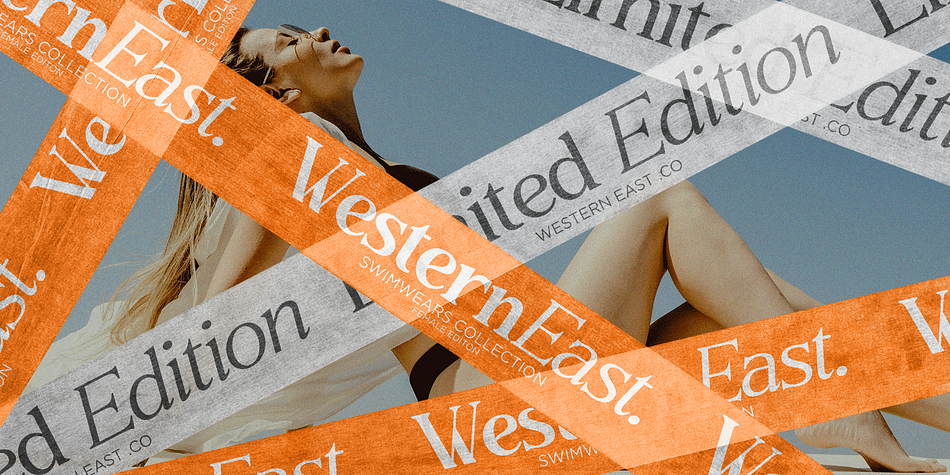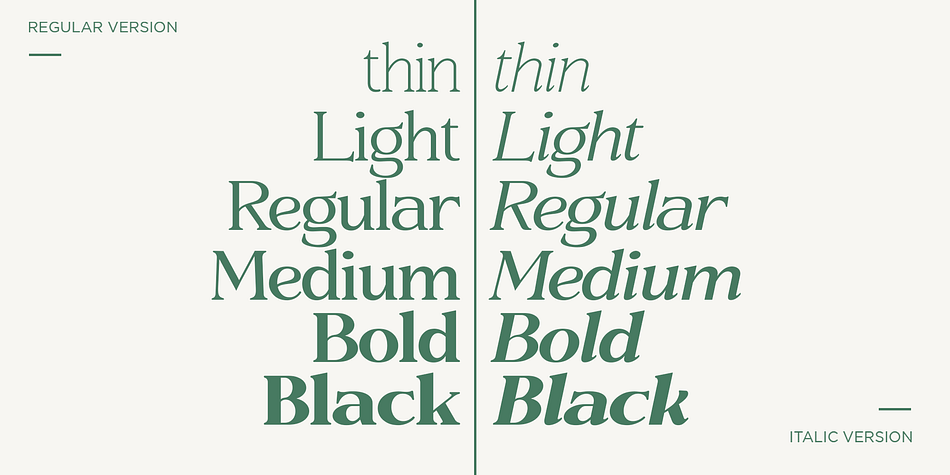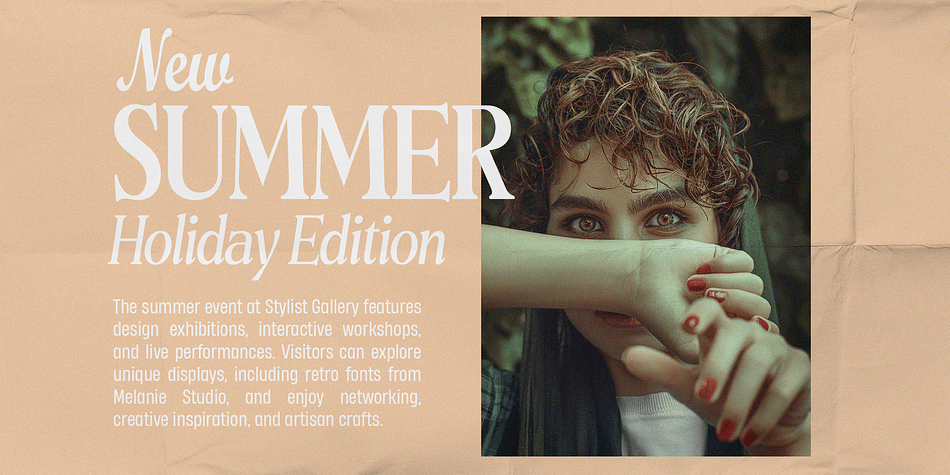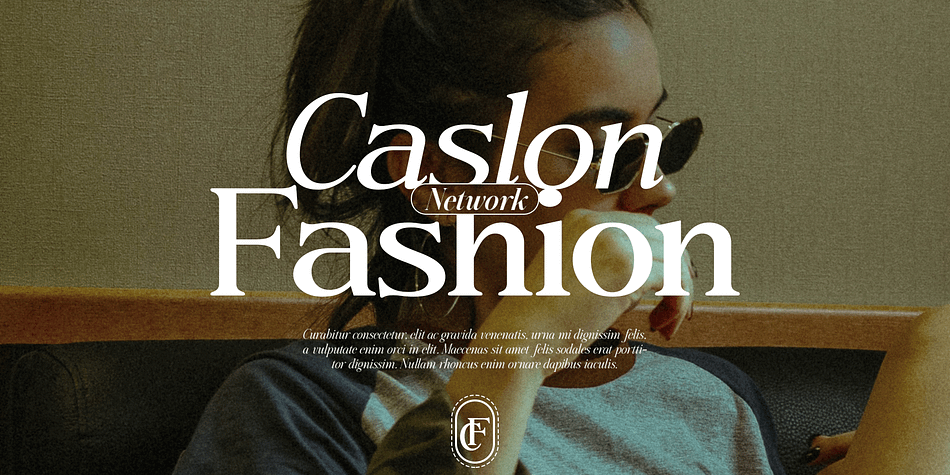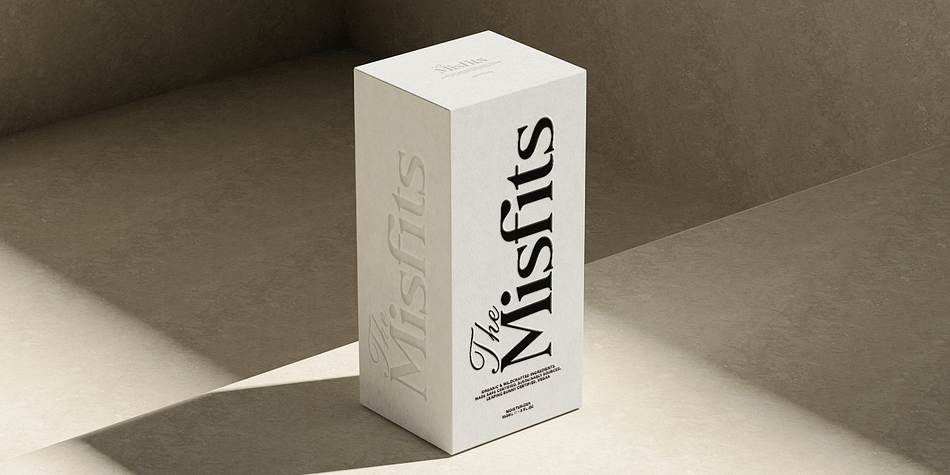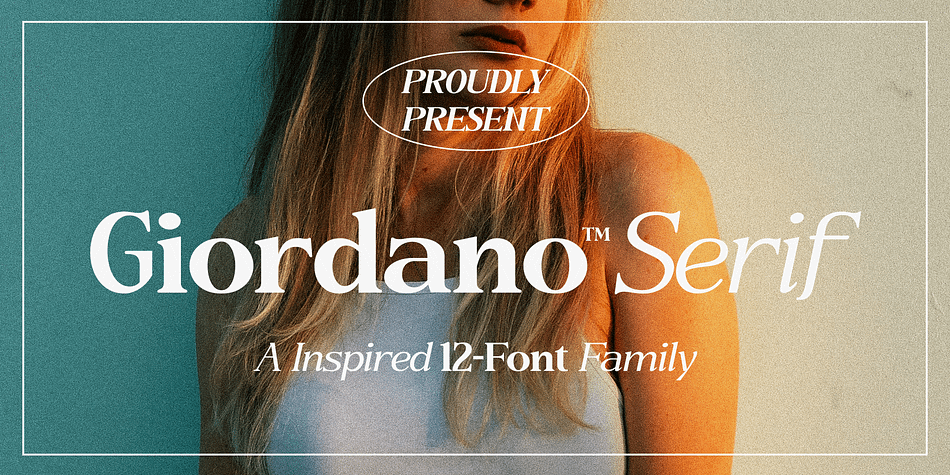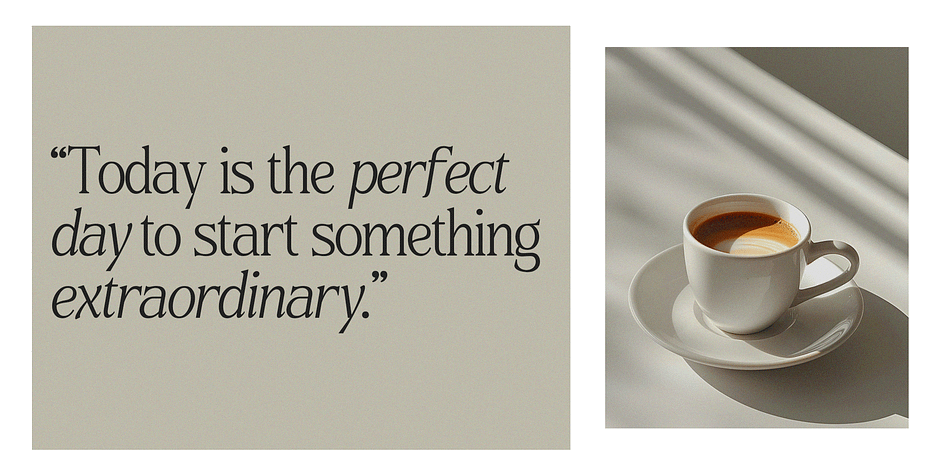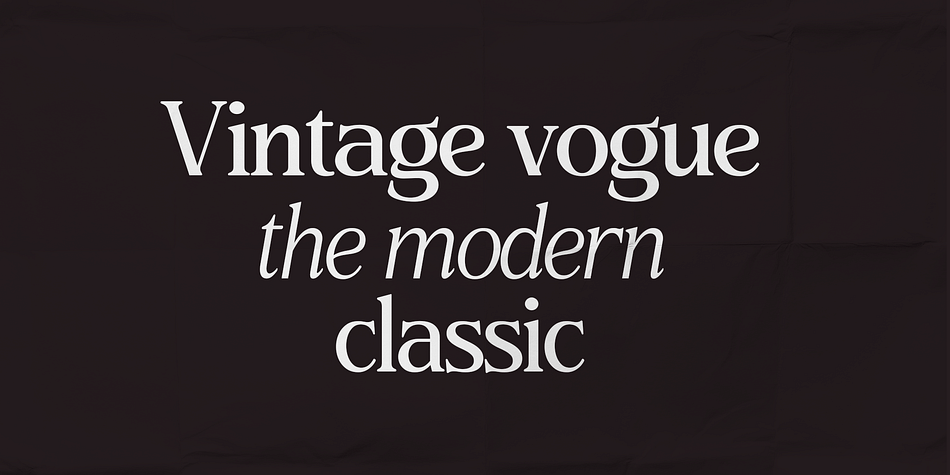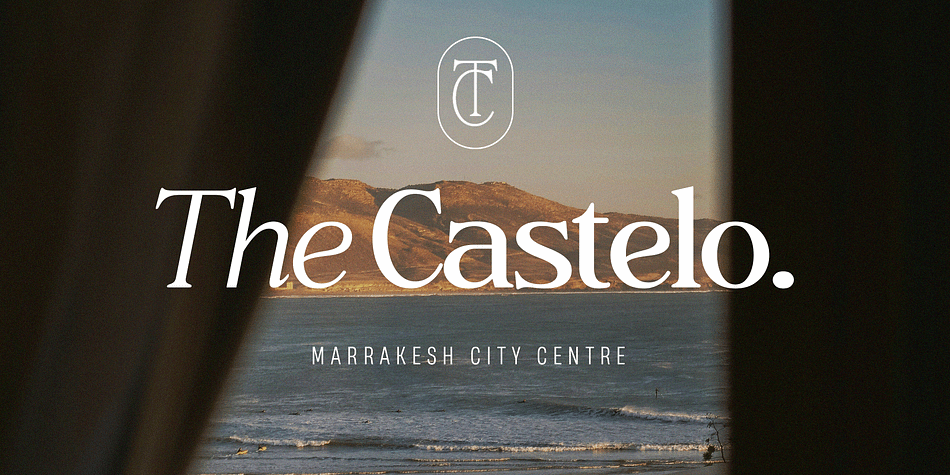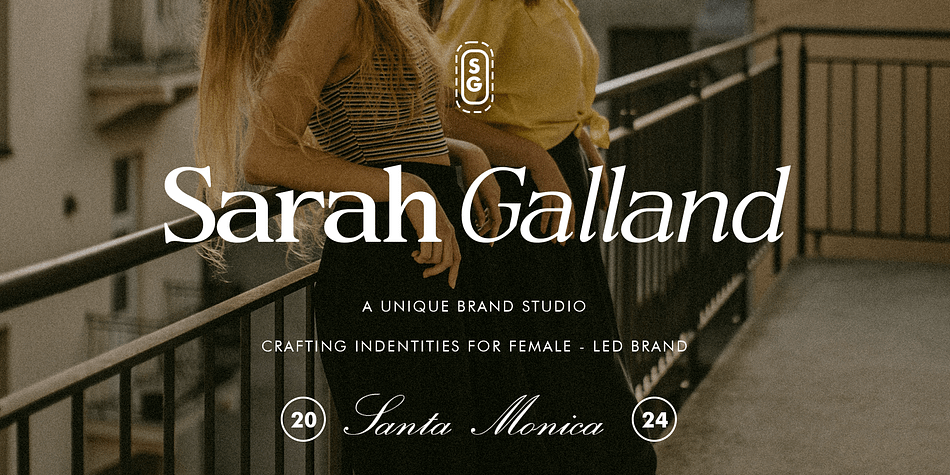
Giordano
Giordano is a serif font family. This typeface has thirteen styles and was published by Black Studio.
The Bs Giordano Family is a typeface collection that includes both normal and italic styles. The typeface is known for its elegant and sophisticated design, which is often used in various forms of print and digital media. Here is a brief explanation of each:
Normal Font (Regular):
The normal font in the Bs Giordano Family is characterized by its clean, readable, and balanced letterforms. It is often used for body text and headings where clarity and legibility are important. The design typically features consistent stroke widths and a harmonious blend of traditional and modern typographic elements.
Italic Font:
The italic version of the Bs Giordano Family introduces a sense of dynamism and emphasis to the text. Italic fonts are slanted versions of the normal font, often with slight stylistic modifications to enhance the flow and aesthetic appeal. The Bs Giordano italic font maintains the elegance of the regular style while providing a more fluid and cursive appearance, making it suitable for emphasis, quotes, and decorative purposes.
Both styles in the Bs Giordano Family are designed to complement each other, providing versatility for designers and typographers in creating visually appealing and readable content.